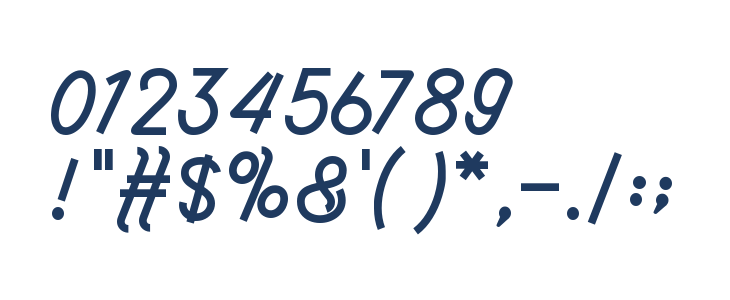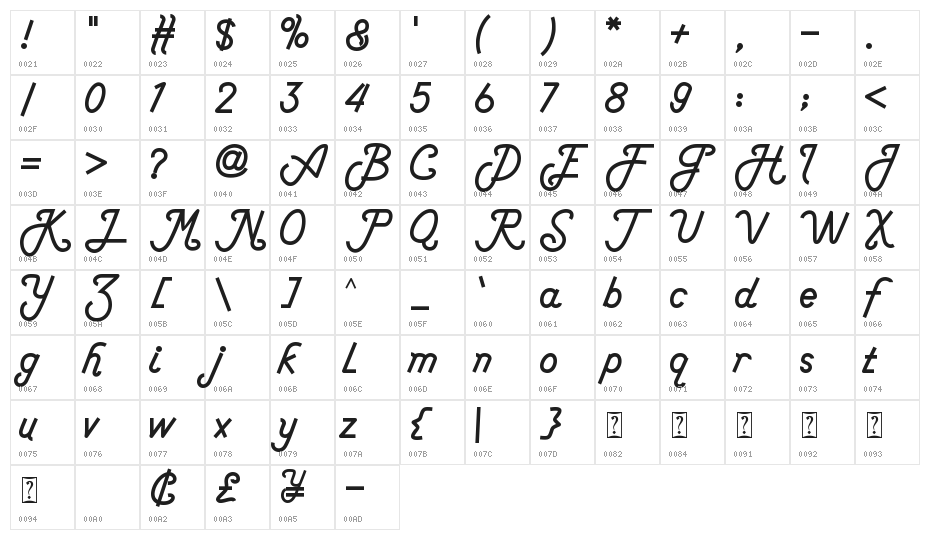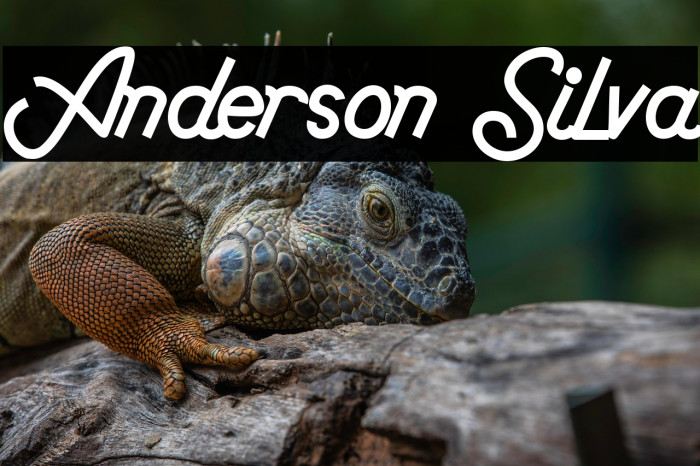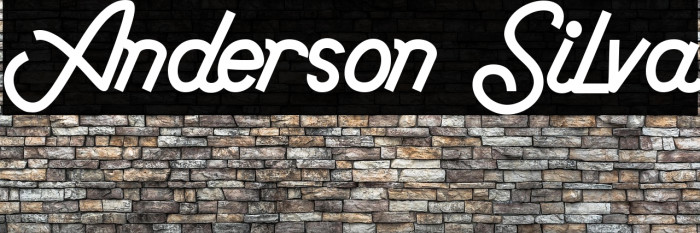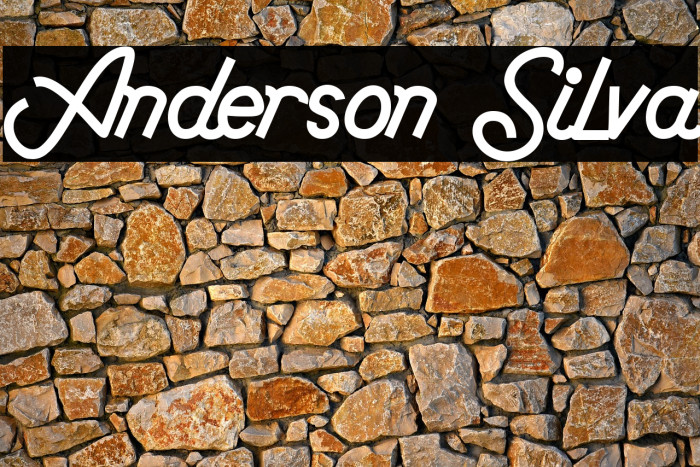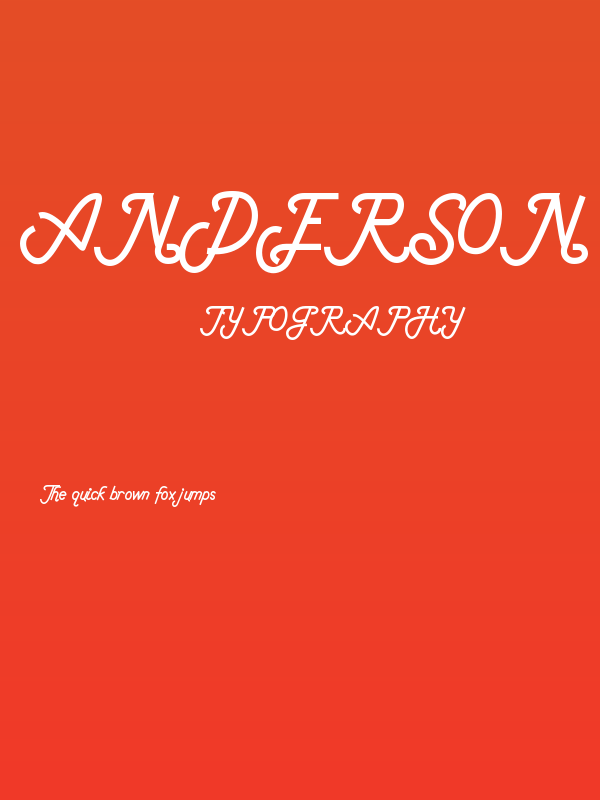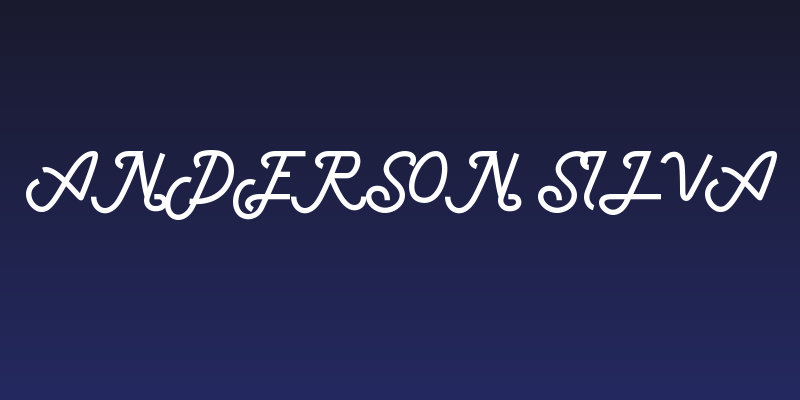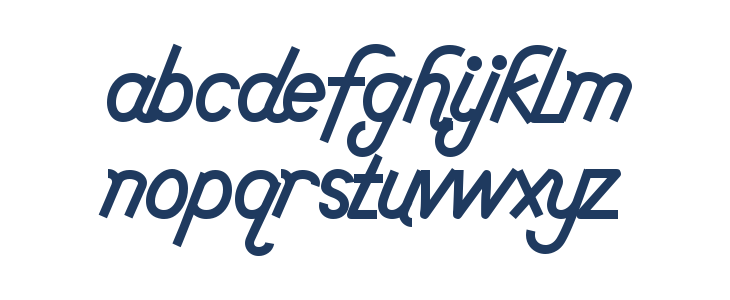
Anderson Silva Font
Anderson Silva Description
This font features a unique blend of cursive and bold characteristics, offering a dynamic and stylish appearance. The uppercase letters are elegantly connected, reminiscent of classic cursive handwriting, while the lowercase letters maintain a more modern, bold style. The numerals and special characters are clear and bold, ensuring readability. The overall design is both sophisticated and approachable, making it suitable for a variety of applications. The font's distinct style is perfect for creating eye-catching headlines or logos that require a touch of elegance and modernity.